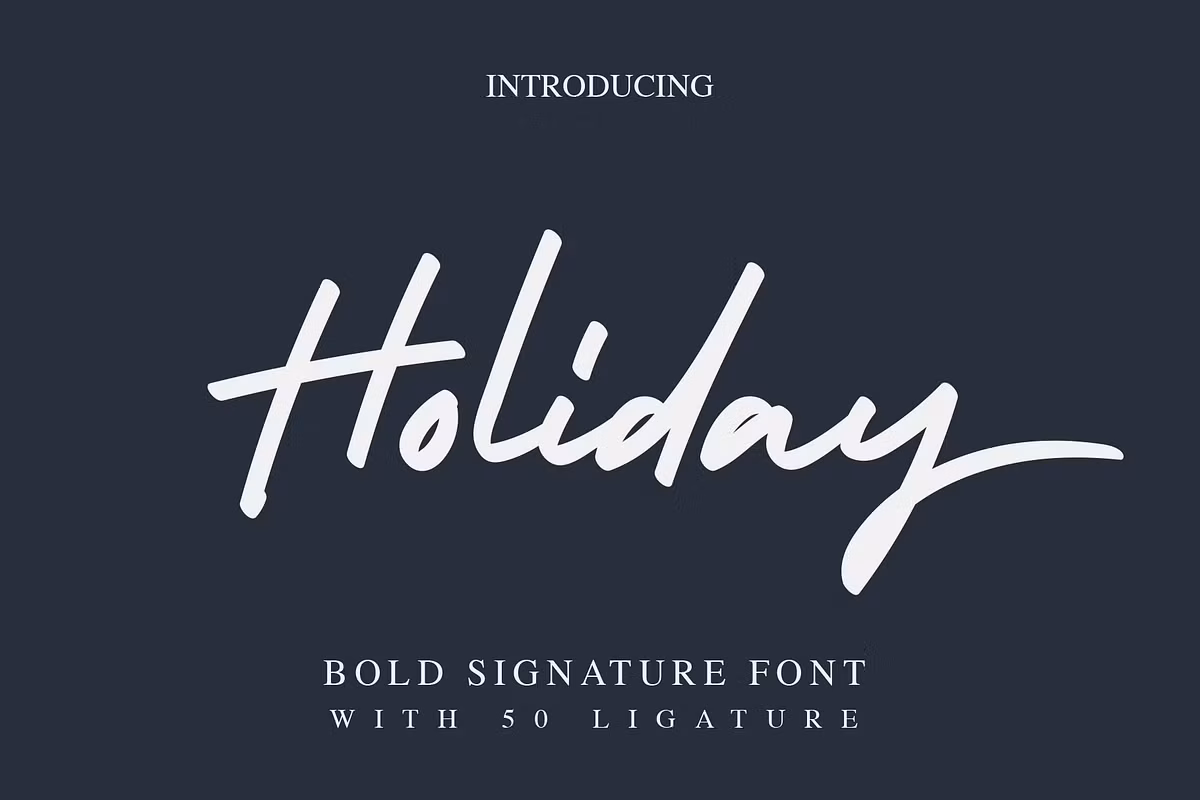
Celebrate the festive spirit with Holiday - Script Handwritten Font Free Download. This charming handwritten script font features smooth, flowing strokes and elegant curves, making it perfect for holiday designs, greeting cards, invitations, and festive branding.
Holiday brings warmth and personalization to your typography with its playful and organic feel, ideal for seasonal designs that need a personal touch. It includes uppercase and lowercase letters, numerals, punctuation, and ligatures—perfect for testing out stylish and expressive holiday layouts.